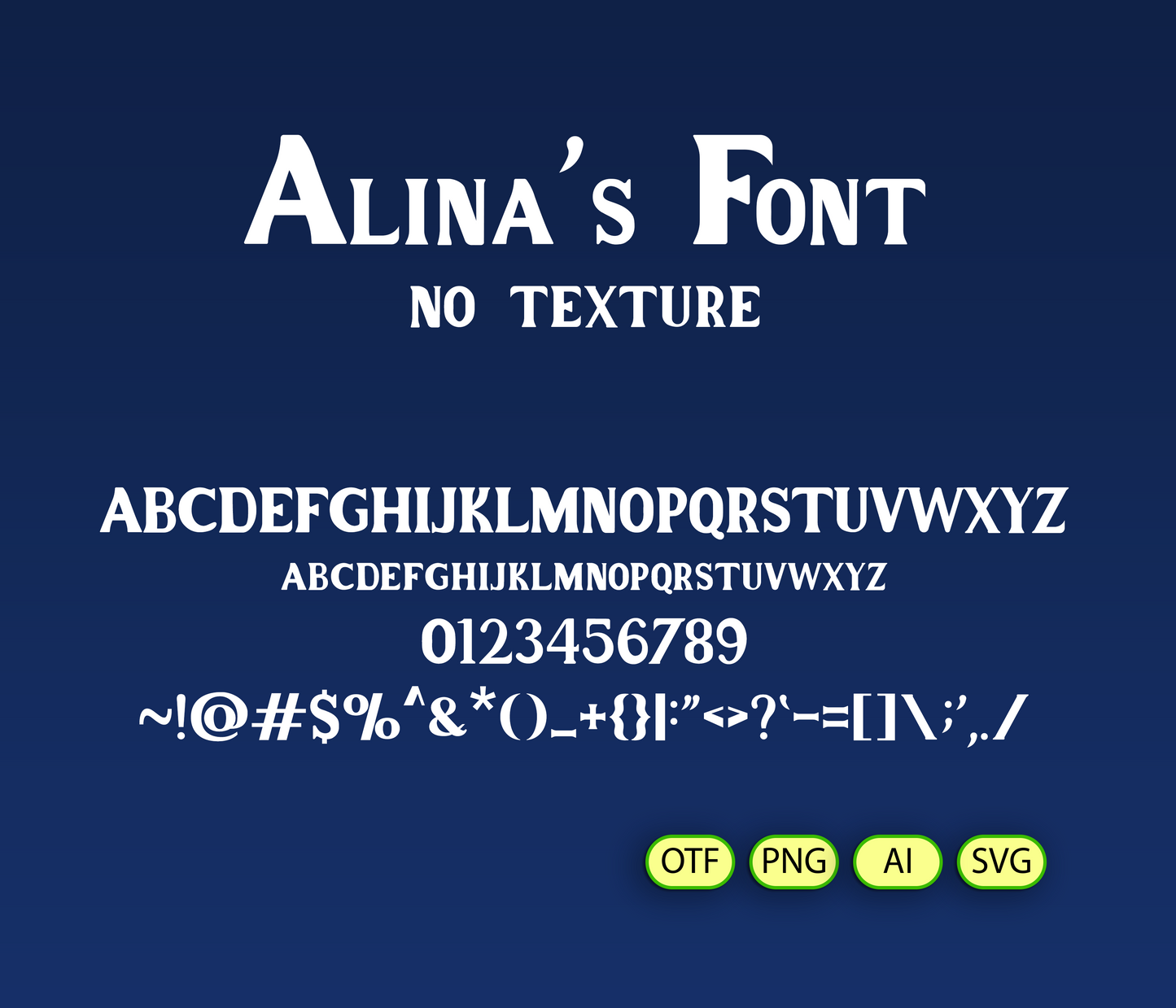
Magical Theater Spectacular Victorian Style
Journey into the extraordinary realm of grand stage illusions and theatrical wonders with our Magical Theater Spectacular font, embodying the essence of captivating performances and miraculous storytelling adventures. Perfect for theatrical magic creators, vintage performance designers, spectacular storytellers, and creative professionals, this font delivers the dramatically enchanting yet emotionally moving, grandly theatrical atmosphere of stage magic tales to your projects. Craft spectacular invitations, theatrical magic merchandise, or digital content with the dramatically powerful, miraculously inspiring energy of grand performance stories.
Our Magical Theater Spectacular font features elaborate, performance-inspired letterforms and dramatically enchanted characters reflecting the spectacularly moving yet elegant aesthetic of grand theater scenarios. Ideal for:
- Grand Theater Events: Design spectacular invites, posters, and banners for stage-themed parties, magical performances, and theatrical spectacular gatherings
- Victorian Magic Design: Perfect for book covers, performance promotions, and theater-themed accessories that capture grand illusion essence
- Digital Media: Enhance websites, blogs, and social media with dramatic headers and graphics that express theatrical grandeur and magical spectacle
- Entertainment Content: Add authentic character to theatrical magic materials, grand performance designs, and promotional materials for spectacular events
- Personal Projects: Bring dramatic appeal to scrapbooking, DIY crafts, and home decor inspired by the aesthetics of grand theatrical adventures